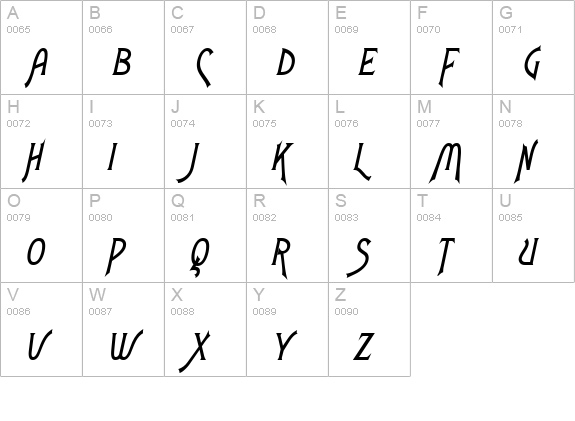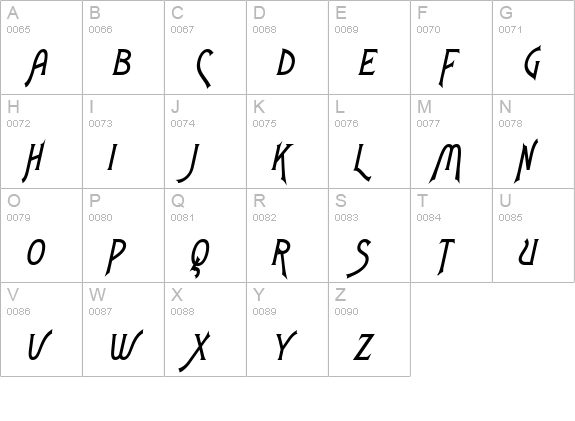
Fletch Condensed BoldItalic is a distinctive, condensed-width variant in the Fletch typeface family \xE2\x80\x94 well suited to design and typography projects.
Fletch Condensed BoldItalic font is a sleek and modern typeface that exudes confidence and style. Its bold and italicized design makes it perfect for adding emphasis and flair to your projects. This versatile font is ideal for headlines, titles, and branding materials. Best of all, Fletch Condensed BoldItalic font is available for free download at FontsMarket.com. Whether you're a designer looking to enhance your creations or a business owner seeking a distinctive look for your brand, this font is a fantastic choice. Don't miss out on the opportunity to elevate your designs with this eye-catching and dynamic typeface - download Fletch Condensed BoldItalic today!